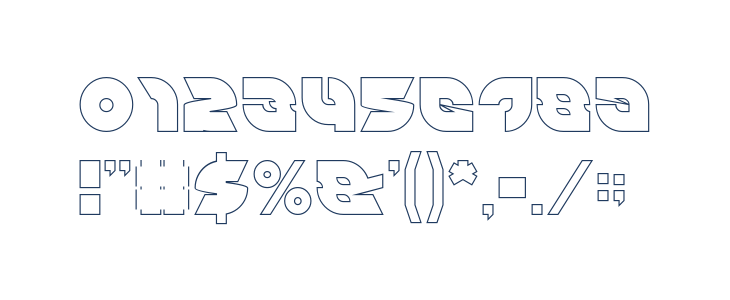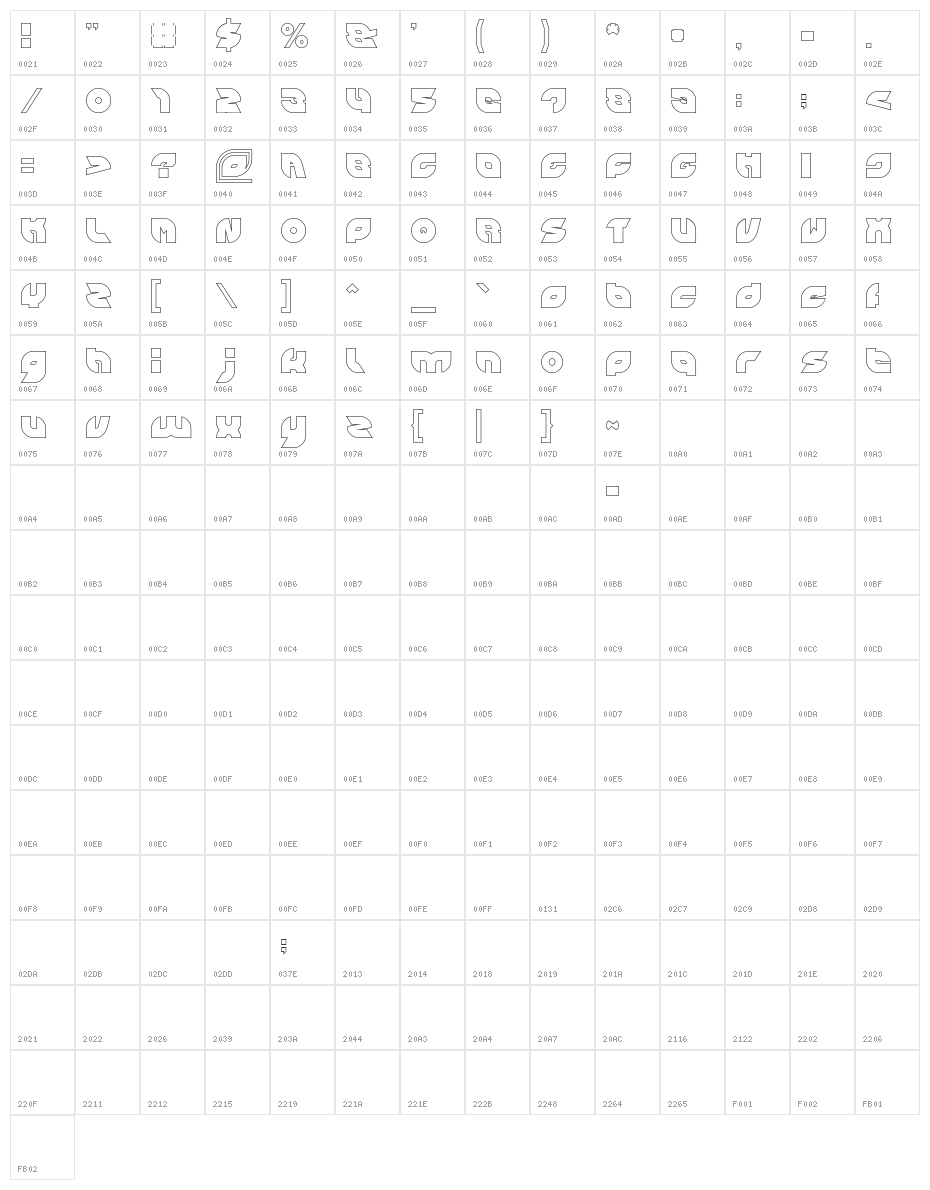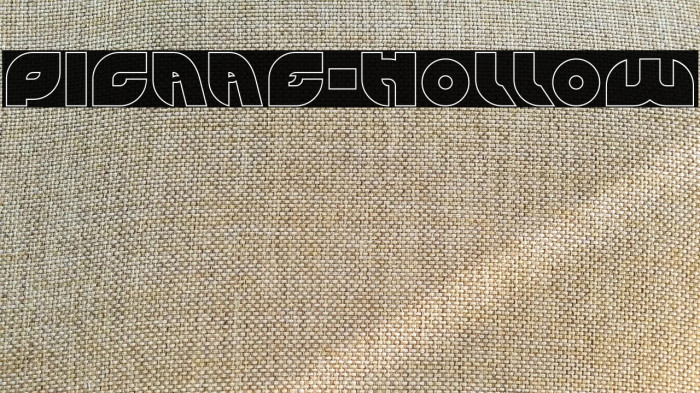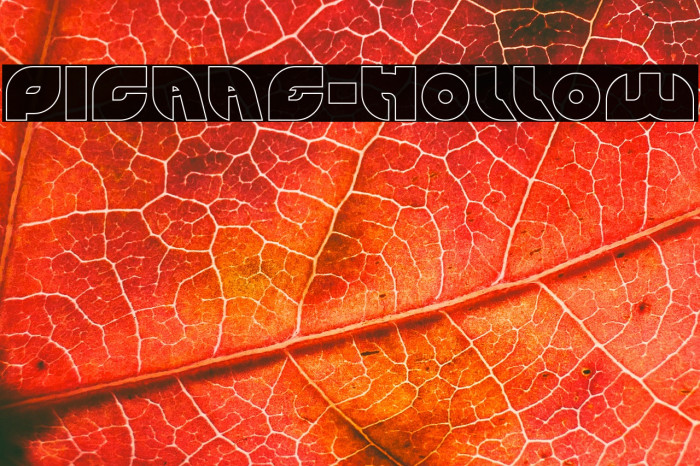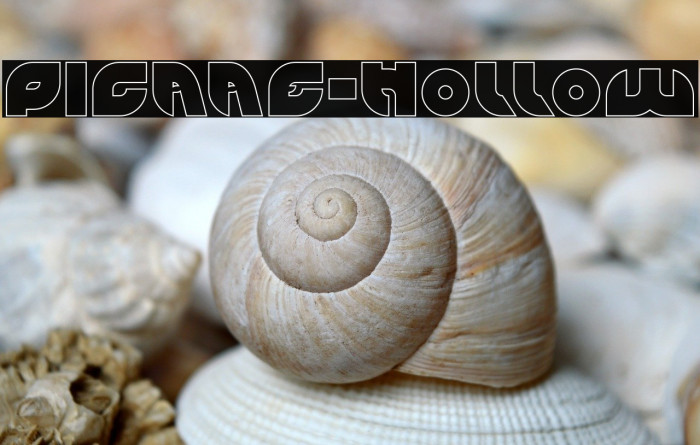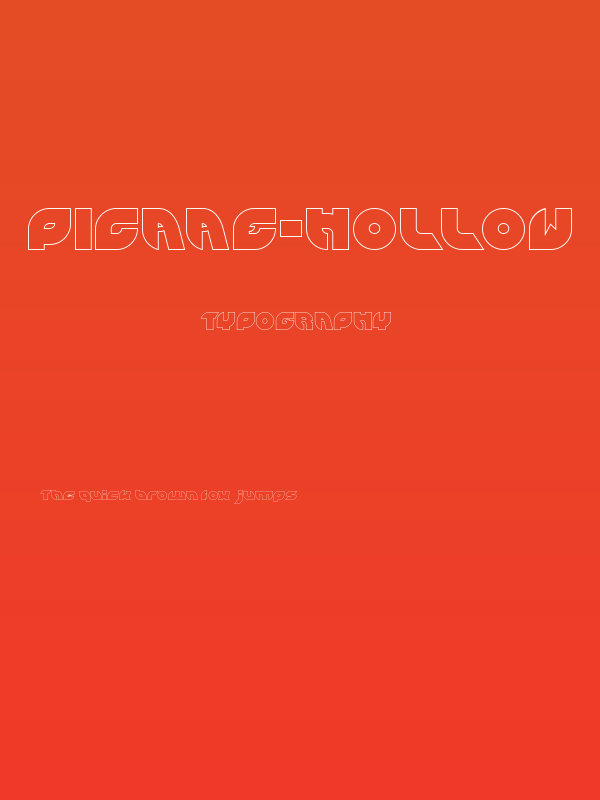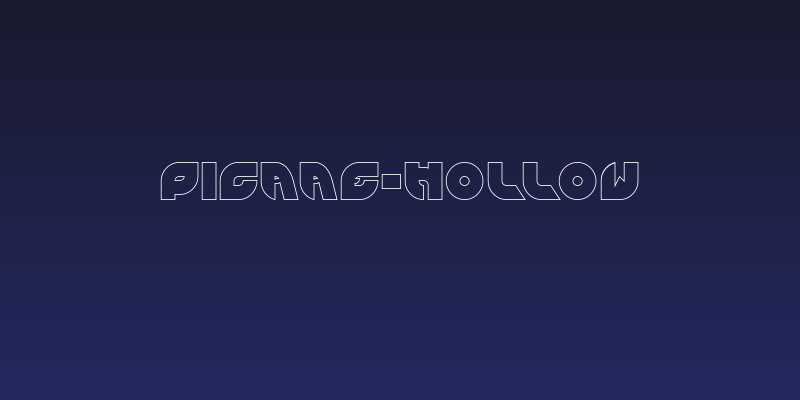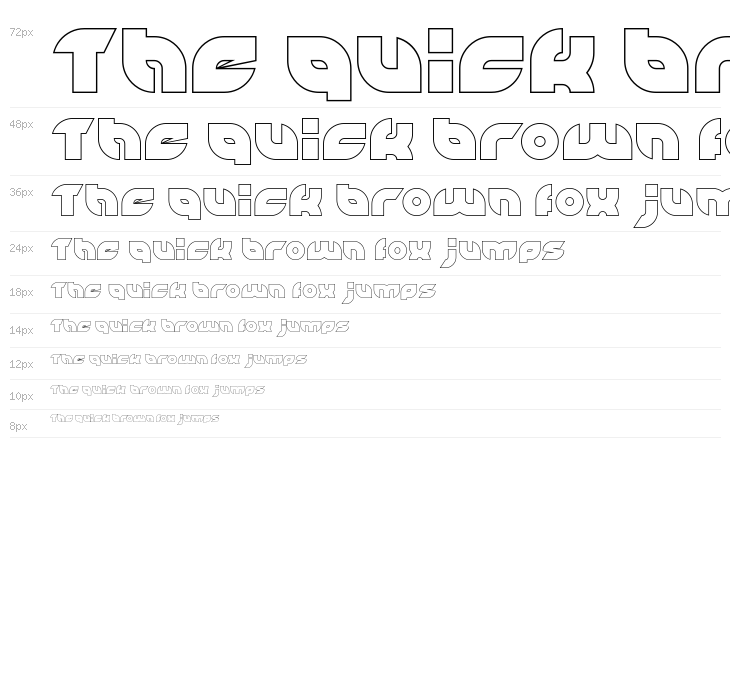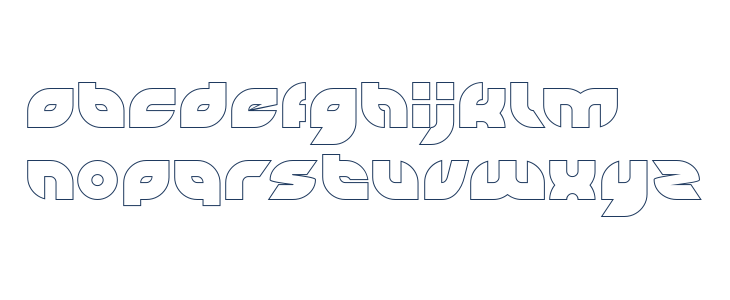
PICAAE-Hollow Font
PICAAE-Hollow Description
This font features a bold, geometric design with hollow interiors, giving it a futuristic and digital appearance. The characters are constructed with thick lines and sharp angles, creating a sense of movement and energy. The uppercase and lowercase letters maintain a consistent style, with unique cuts and angles that add to the font's distinctiveness. Numbers and special characters follow the same design principles, ensuring uniformity across all elements. The hollow nature of the font allows for creative use of background colors and textures, making it versatile for various design applications.